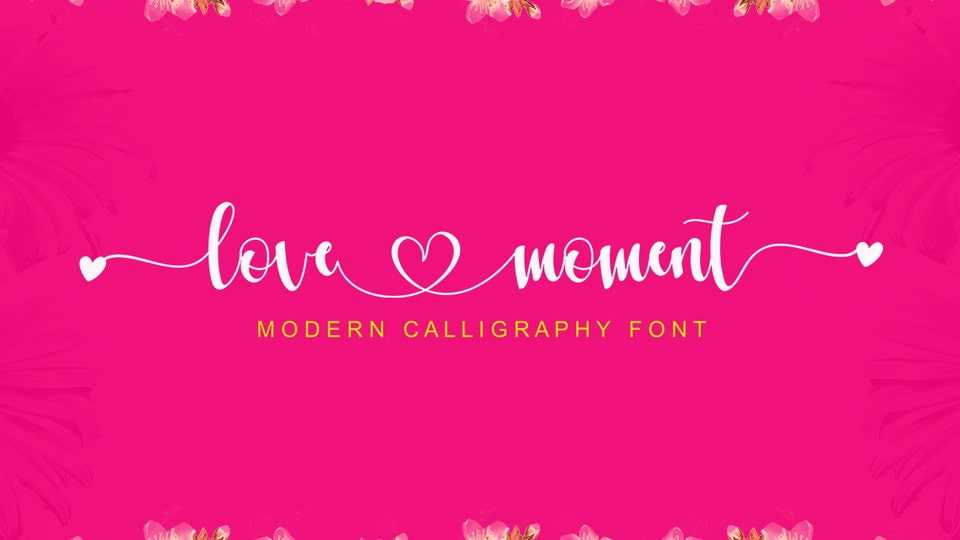
Download Love Moment font, a pretty and charming modern calligraphy script typeface, perfect for branding, wedding invitations, and any other romantic project.